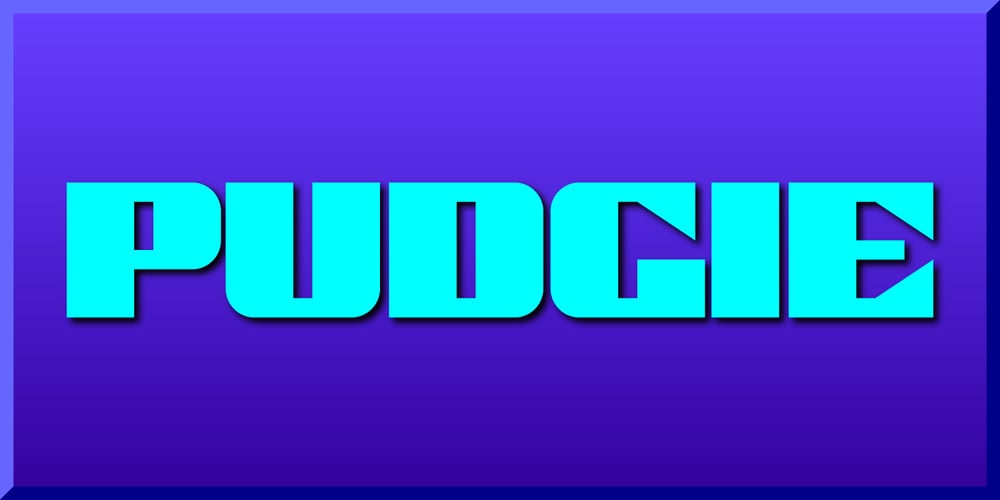
Pudgie
Pudgie font
Pudgie Font Family was designed by Gerald Gallo and published by Gerald Gallo. Pudgie contains 1 styles and family package options. Pudgie is an all caps, bold, sans serif font. It is ideal for headlines, titles, branding, and small blocks of text.